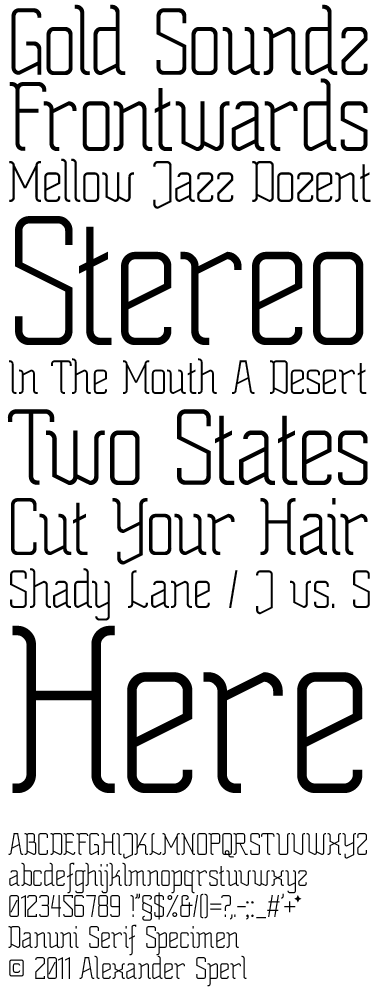
Danuni Serif
Danuni is a track by F.X. Randomiz which I listened to when starting this typeface. It has hardly anything to do with the final version, though.
Nice one, I like the museo feel of it.
nice work very nice. Bravo 10
the font is well balance
Love the design...which is enhanced by the forward-backward movement.
@jmarquez yeah, i thought of museo during the process, i really love the exlijbris typefaces...